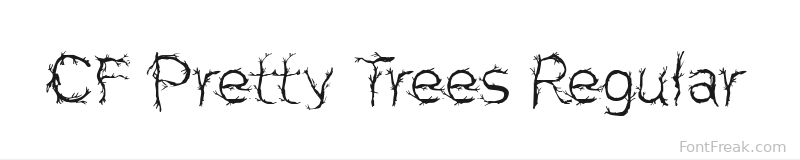
CF Pretty Trees Regular
About CF Pretty Trees Regular
CF Pretty Trees Regular is a unique decorative font created by Cloutierfontes, characterized by its whimsical, nature-inspired design. As a display font, it captures attention with its playful and organic aesthetic. The strokes display a fine weight with intricate detailing that mimics the appearance of tree branches, giving each letter an earthy and rustic feel. The contrast in thickness adds depth, while the uneven spacing enhances the font's handcrafted charm, making it perfect for designs that require a personal touch.
This font is ideal for a variety of creative applications. Wedding invitations benefit from its romantic and enchanting style, adding a touch of elegance to the special day. It also shines on greeting cards, where its unique character can convey heartfelt messages in a distinctive manner. For businesses looking to create a cozy atmosphere, restaurant menus featuring CF Pretty Trees Regular can evoke a warm, inviting vibe. Additionally, it can be a standout choice for children’s book covers or posters, where its playful nature can capture the imaginations of young readers.
What sets CF Pretty Trees Regular apart is its ability to blend whimsy with elegance, making it a captivating choice for any project. Whether you are designing for a formal event or a casual gathering, this font can transform ordinary text into a visually engaging experience. Don't miss the chance to enhance your design portfolio with the CF Pretty Trees Regular font free download, bringing a touch of nature's beauty to your work.